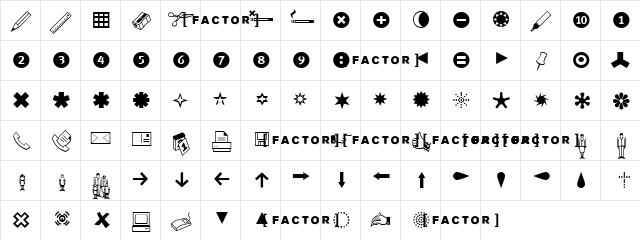
FFDingbests Regular
| Foundry | Factor Design: Johannes Erler, and FSI. Published by FontShop International FontFont Demo Release |
FFDingbests is a composed and adaptable typeface that performs quietly and consistently across a wide range of design contexts.